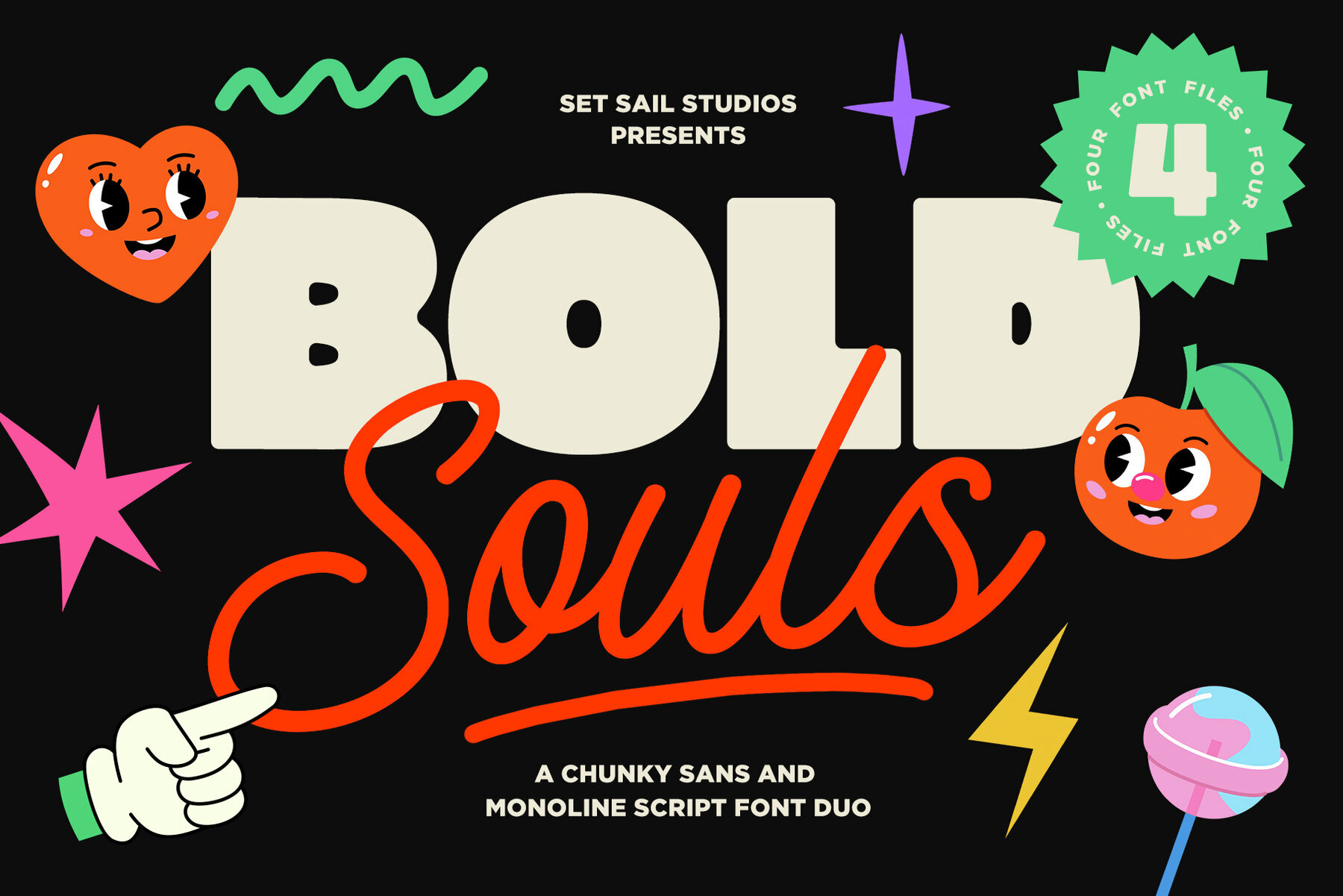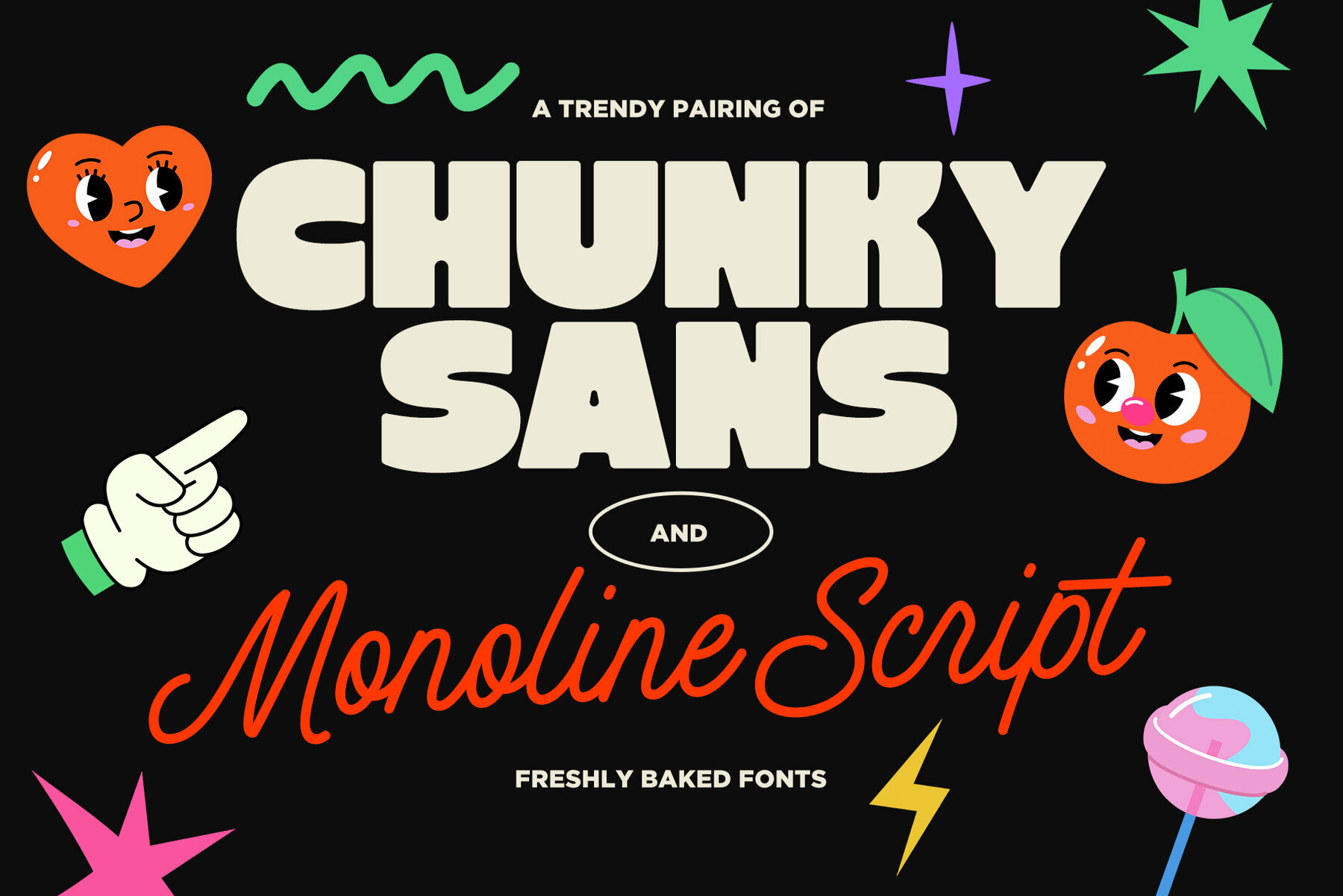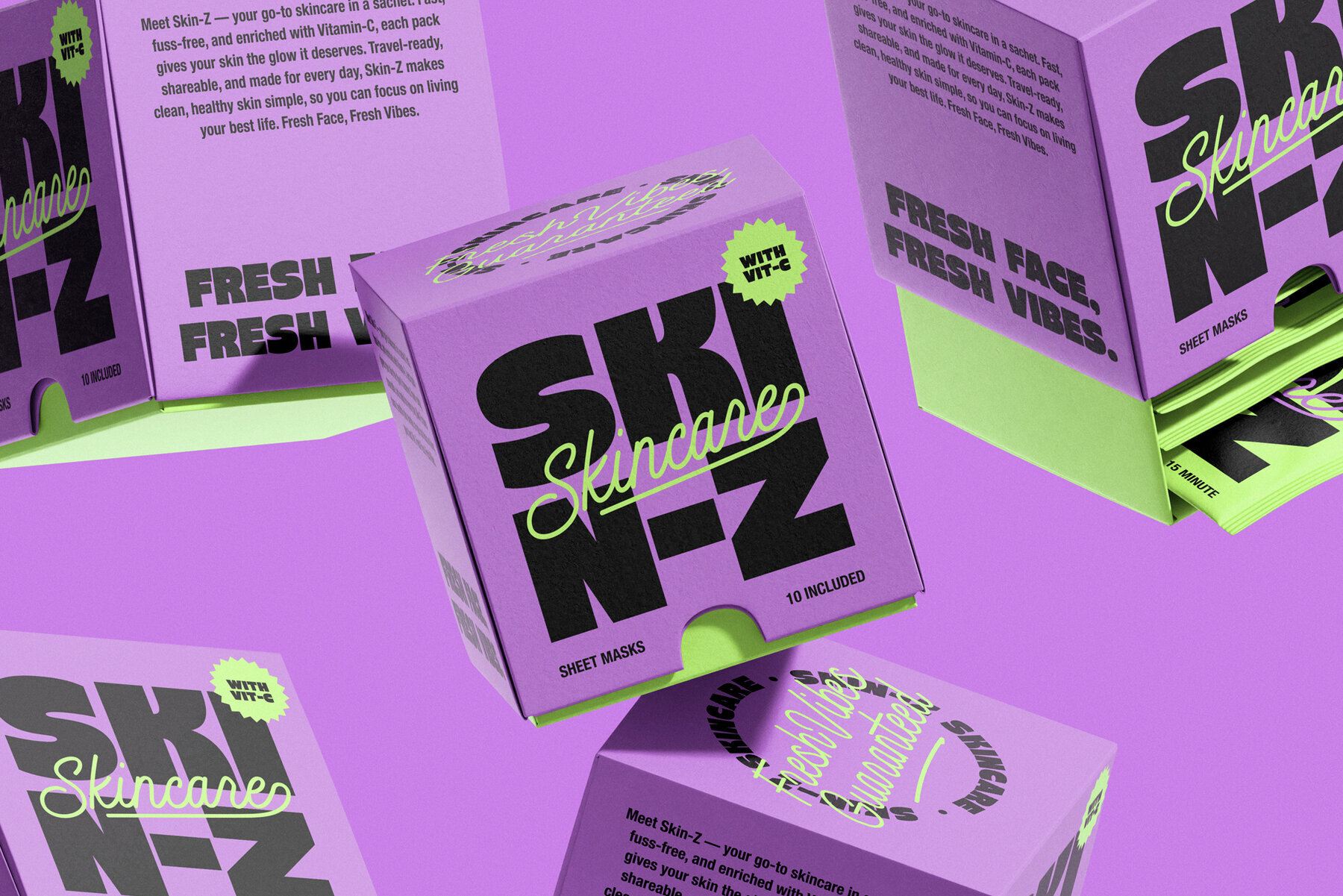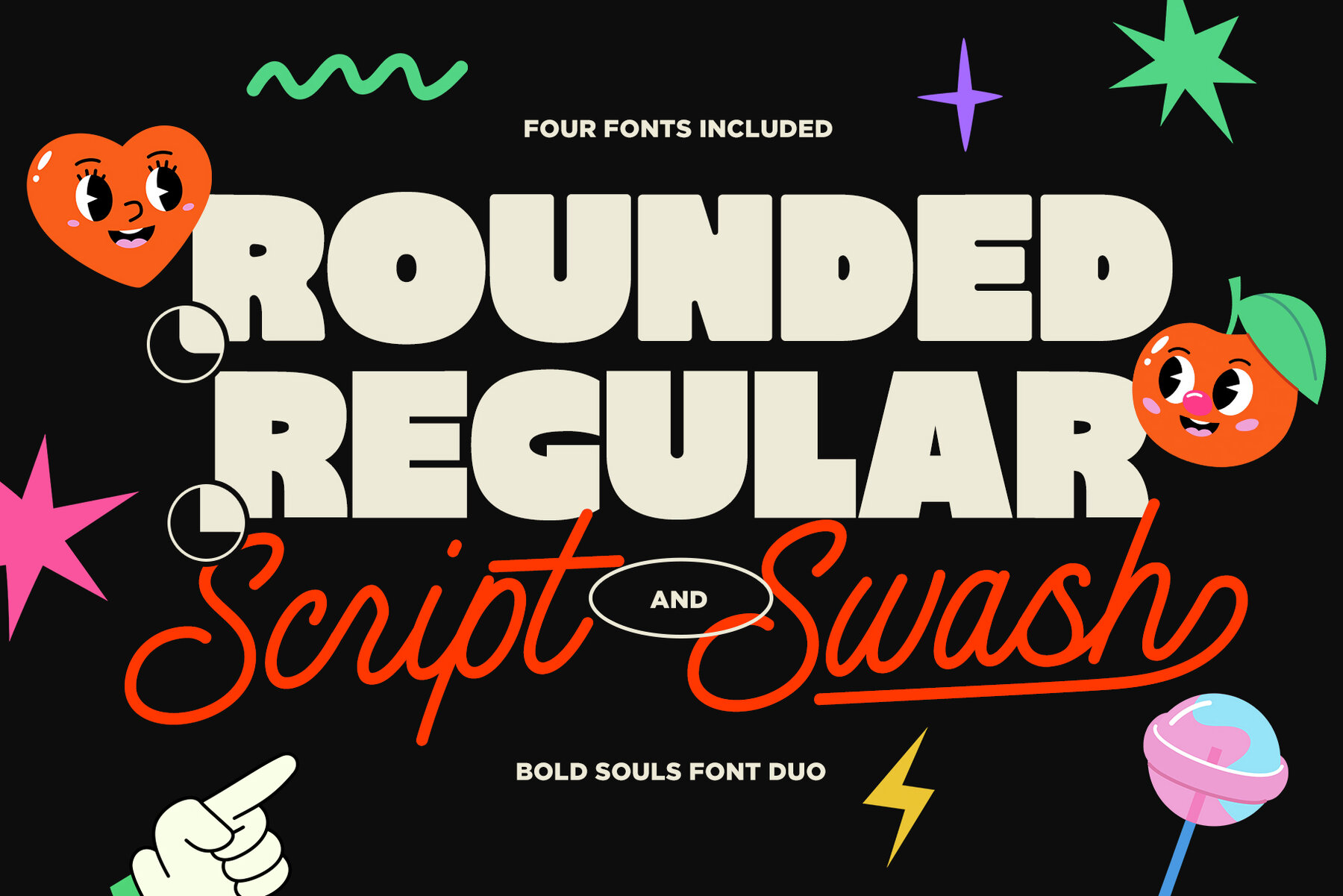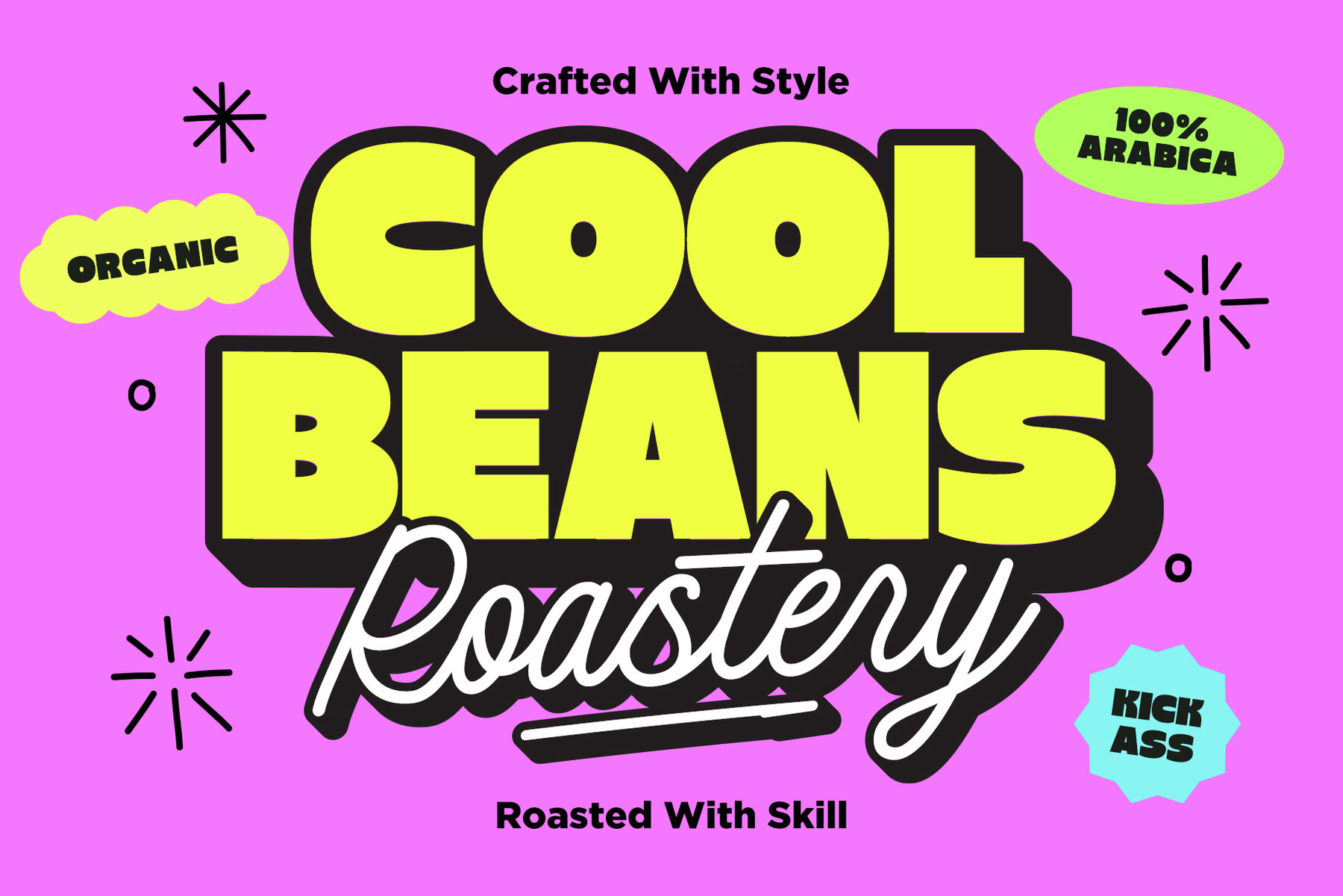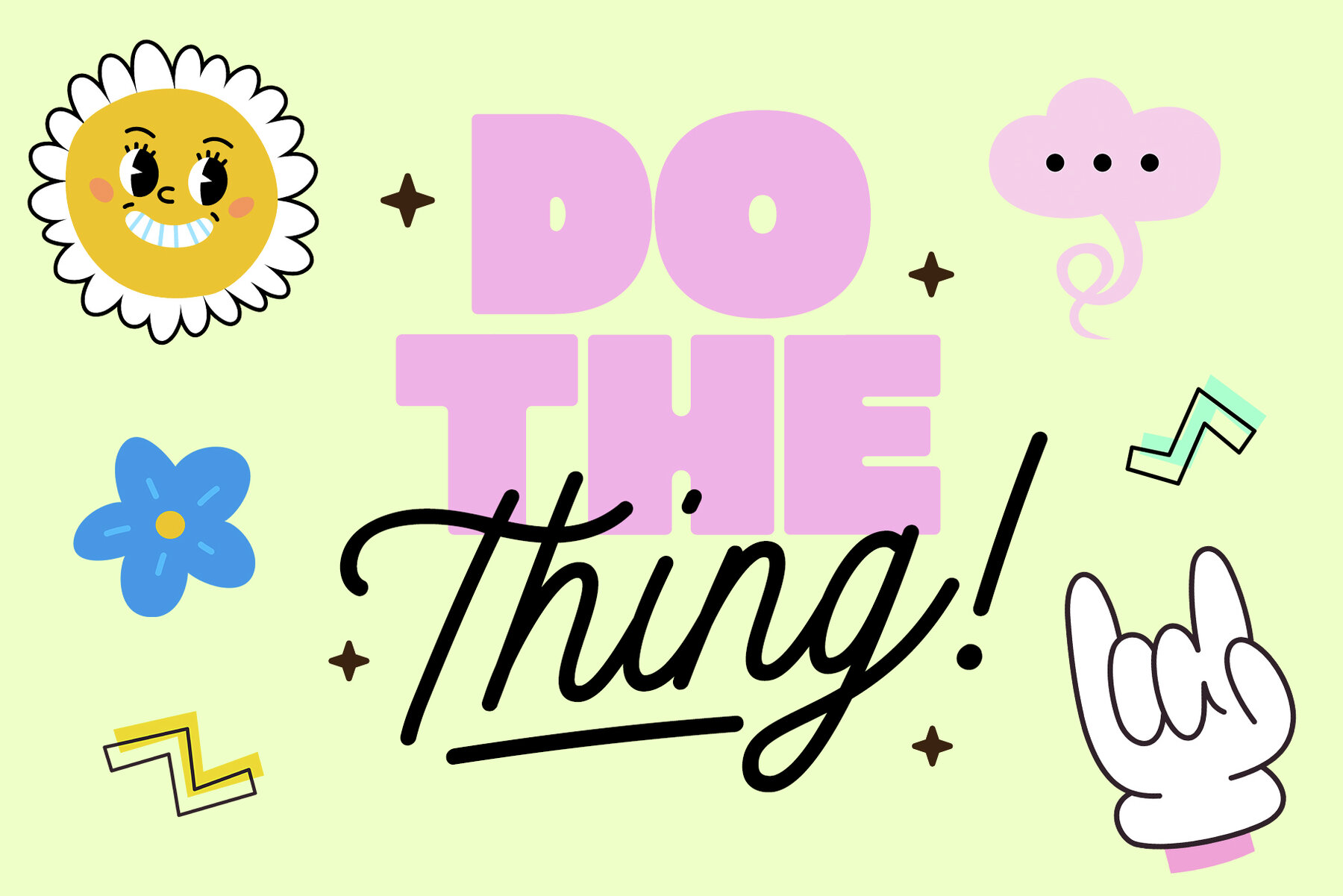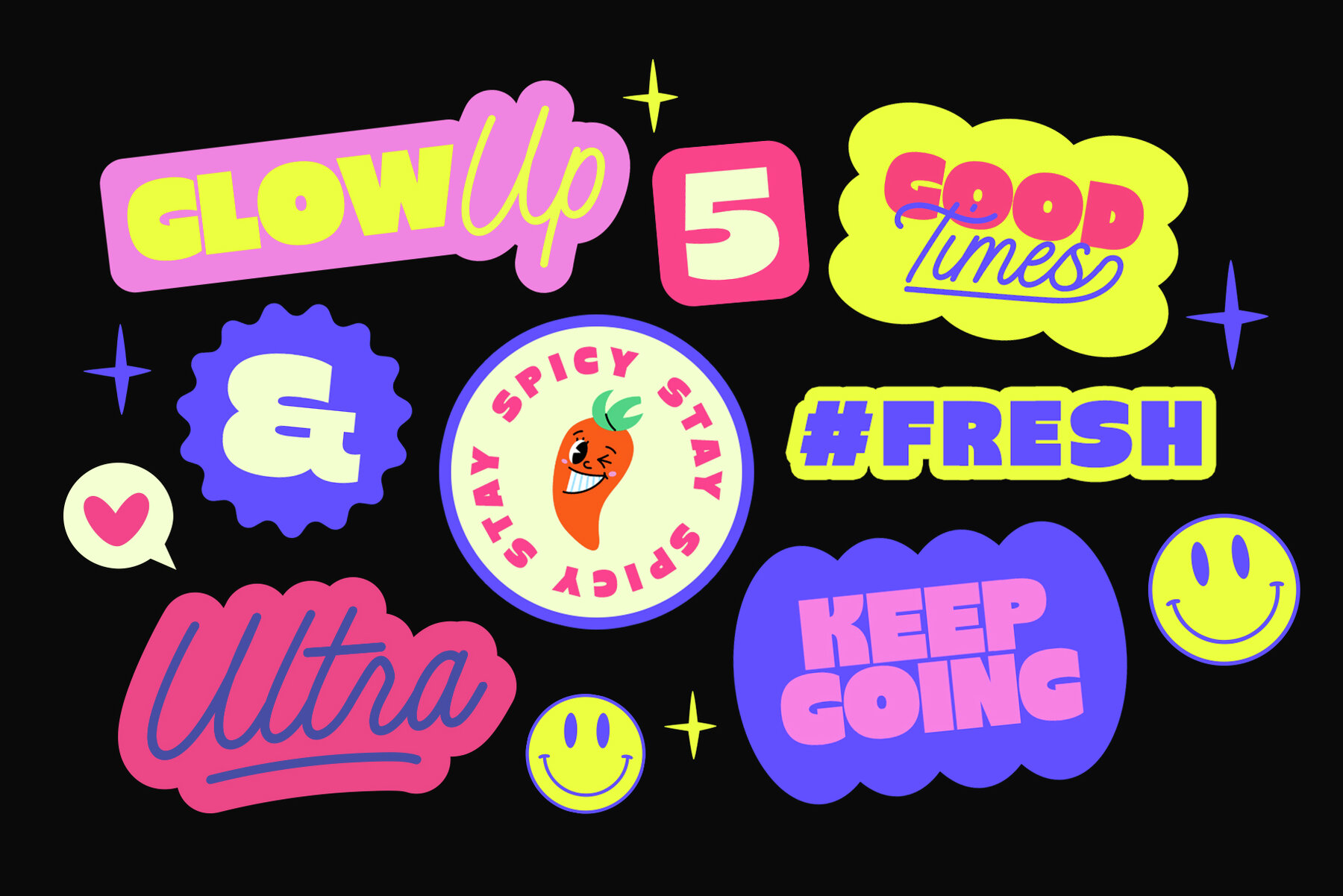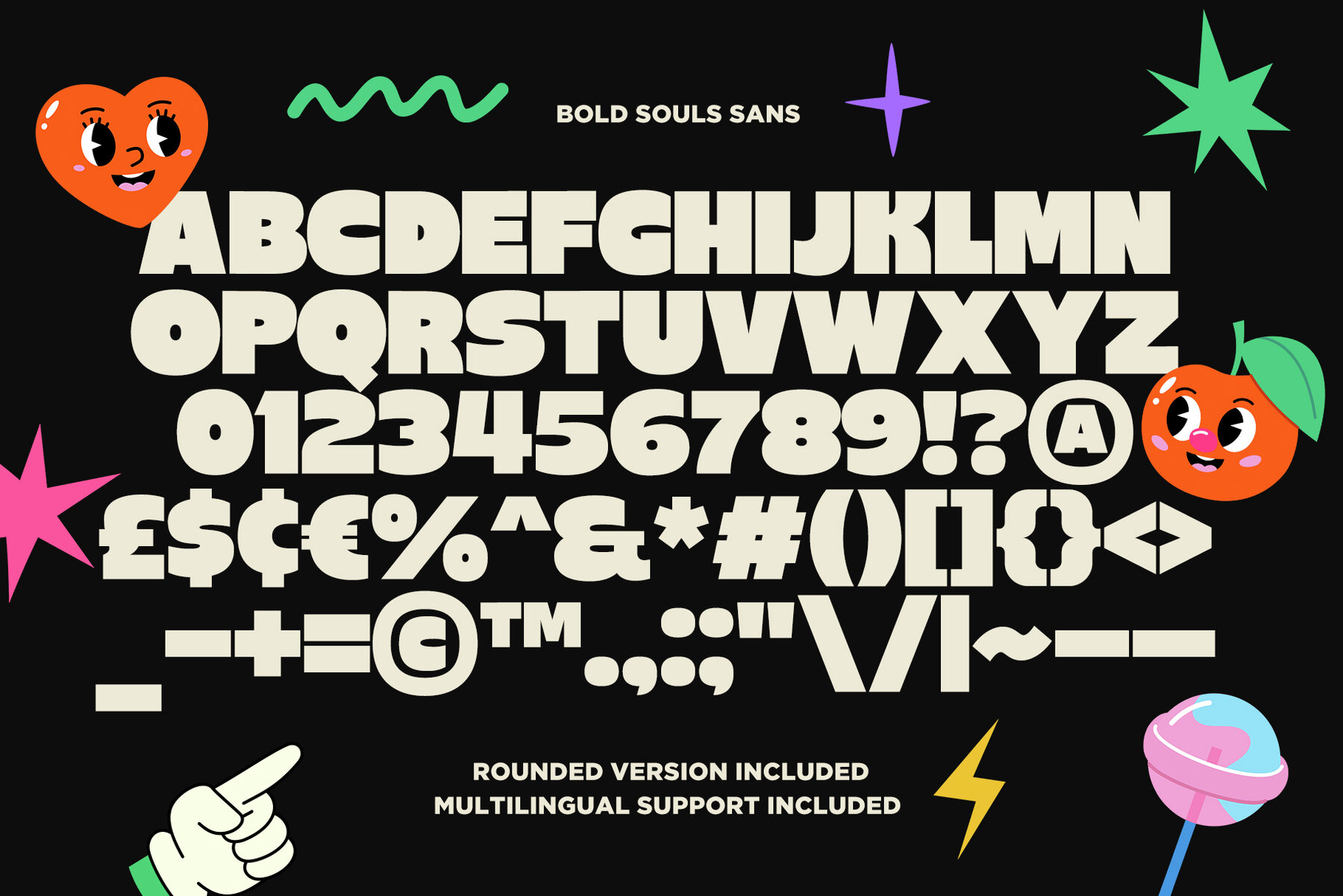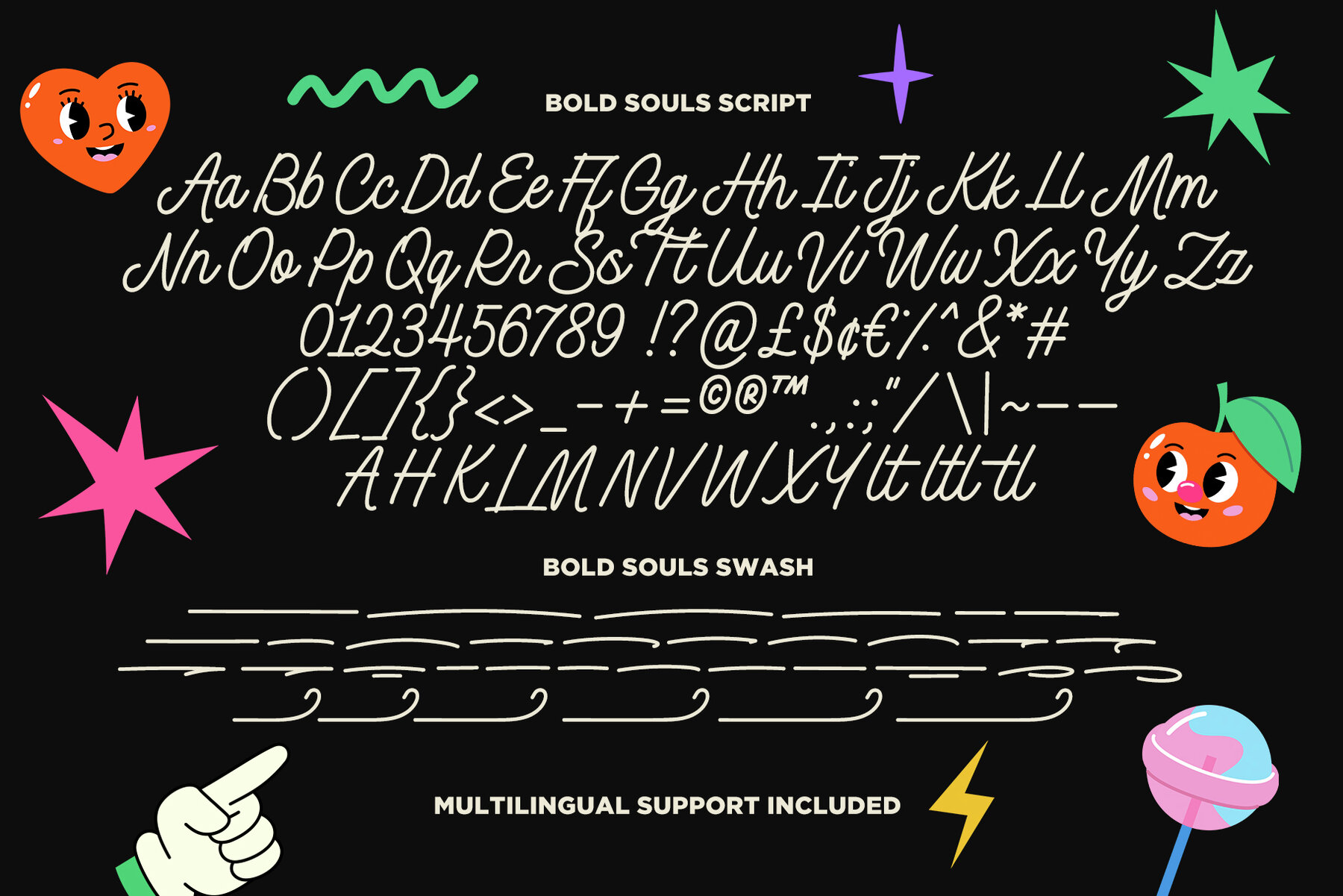
Bold Souls Font Duo
Bold Souls Sans Regular
Bold Souls Sans Round Regular
Bold Souls Script Regular
Bold Souls Swash Regular
Explore the dynamic possibilities with the Bold Souls Font Duo, a well-curated pairing of fonts designed to elevate your design projects. This ensemble features a Super Chunky Sans with optional sharp or rounded edges, complemented by an elegant Smooth Monoline Script, complete with 35 bonus underline swashes. The strong sans provides a robust foundation, while the script adds a graceful touch, each contributing a unique element to your creative endeavors. Language Support: Enjoy multi-lingual capabilities with support for languages including English, French, Italian, Spanish, Portuguese, German, and many more, facilitating global design applications.Bold Souls Font Duo: Versatile Fonts for Dynamic Branding